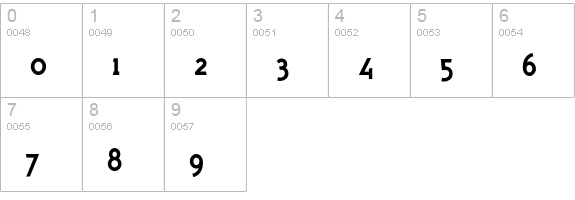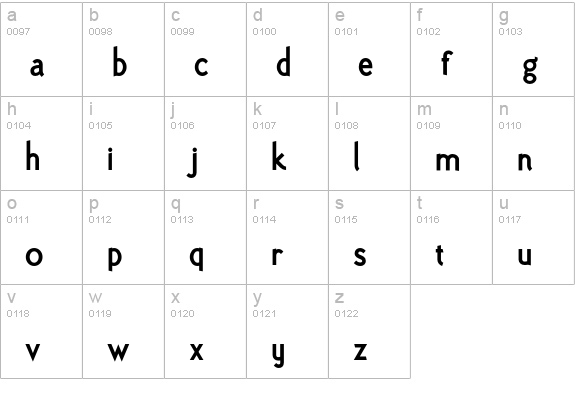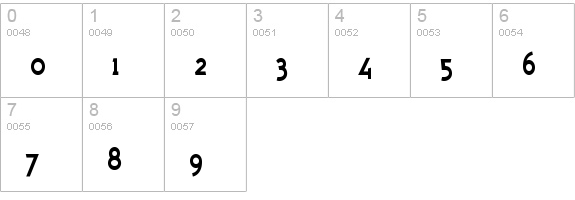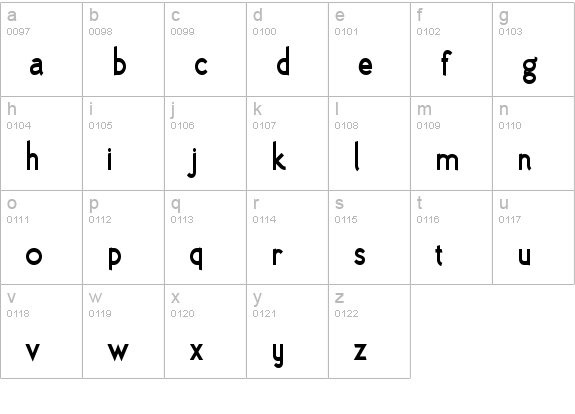
PolymerBoldRoman Font Details
PolymerBoldRoman is a modern and versatile font that exudes sophistication and elegance. With its bold and striking appearance, this font is perfect for creating eye-catching designs that demand attention. Whether you're designing a logo, poster, or website, PolymerBoldRoman will effortlessly elevate your project to the next level. The clean lines and sharp edges of PolymerBoldRoman make it a standout choice for any design project. Its bold presence on the page commands authority and ensures that your message is seen and heard loud and clear. This font is designed to make a statement and leave a lasting impression on your audience. What's even better is that PolymerBoldRoman is available for free download at FontsMarket.com. Yes, you read that right - you can get your hands on this stunning font without spending a dime. So why wait? Download PolymerBoldRoman now and take your designs to new heights with this exceptional typeface.